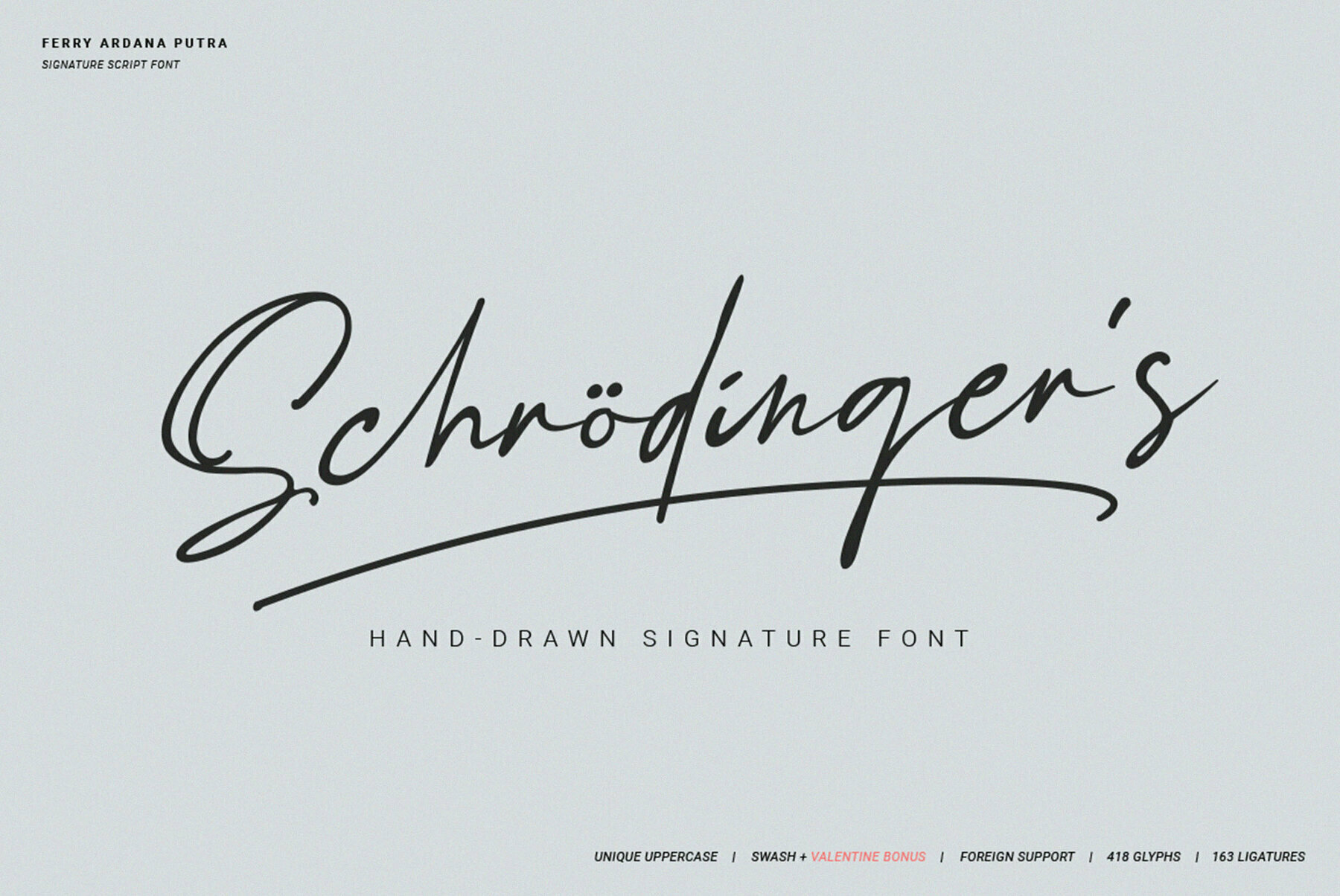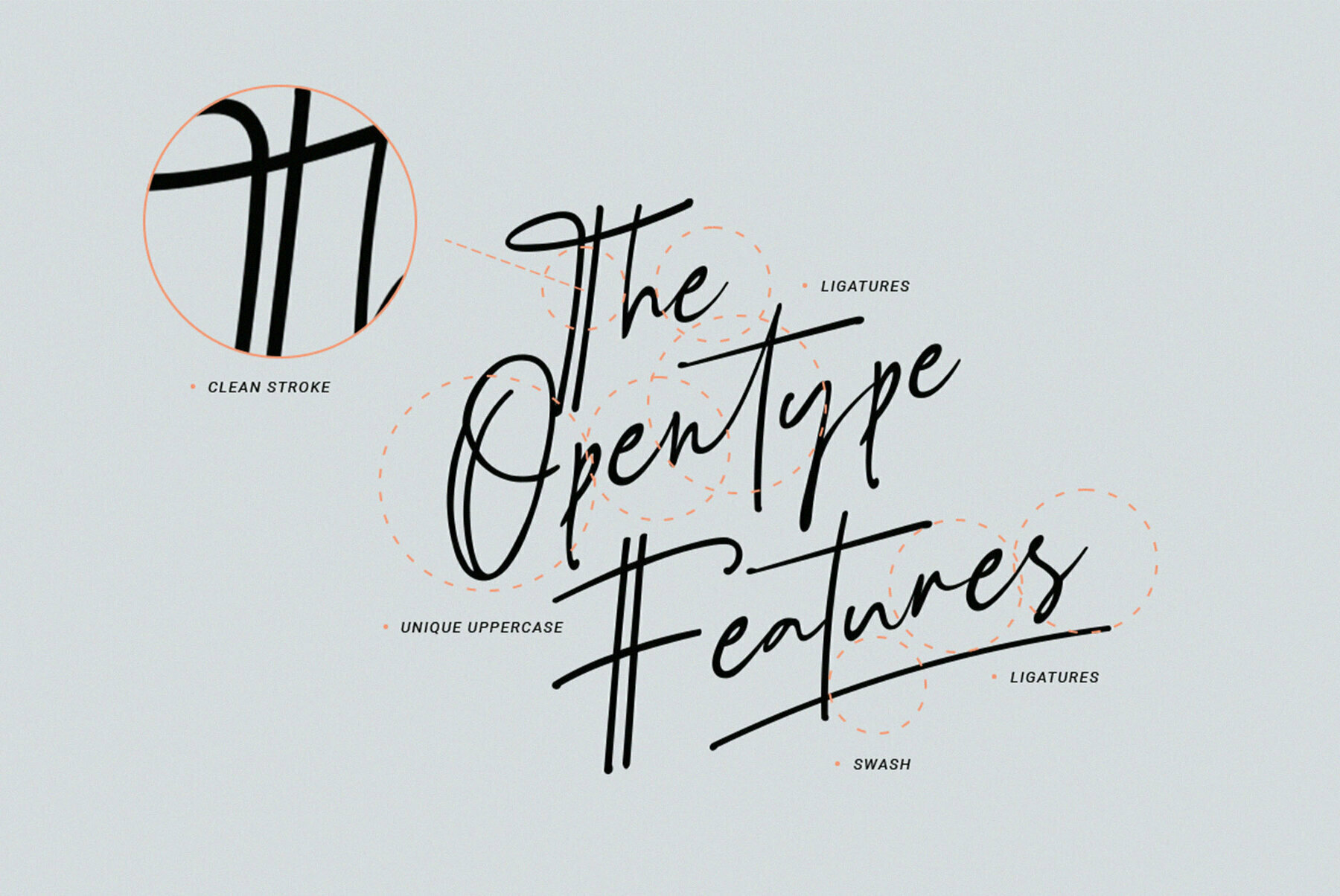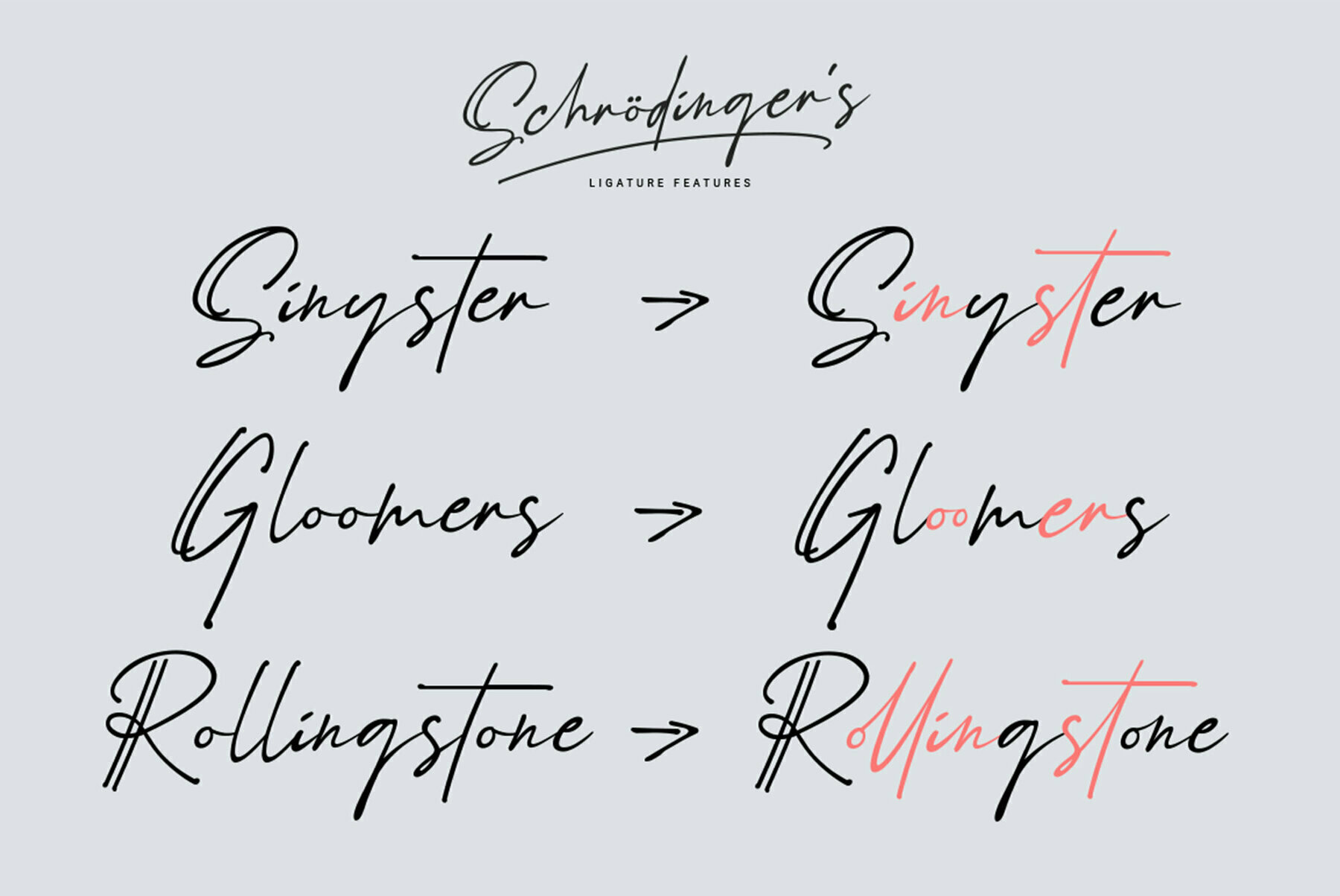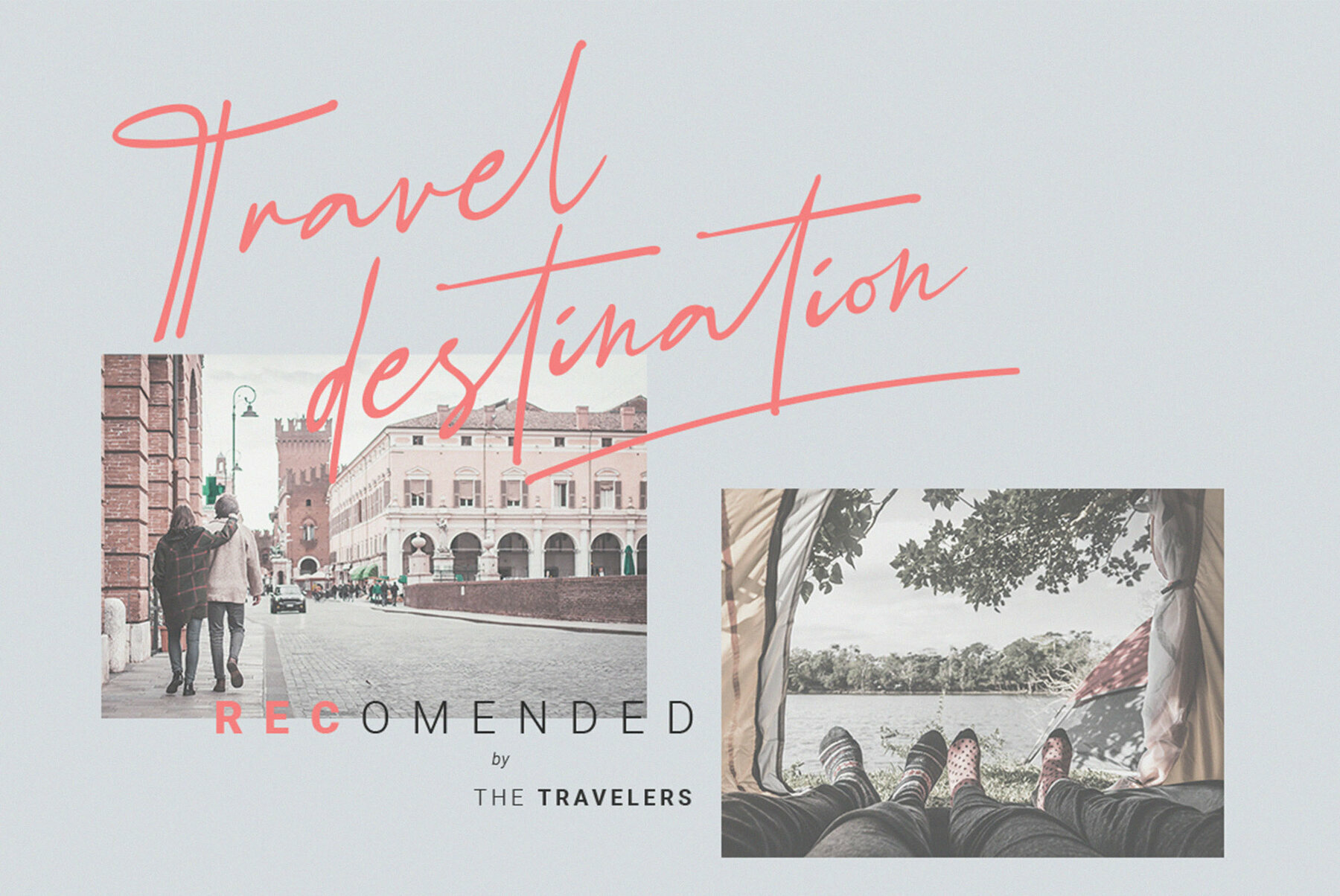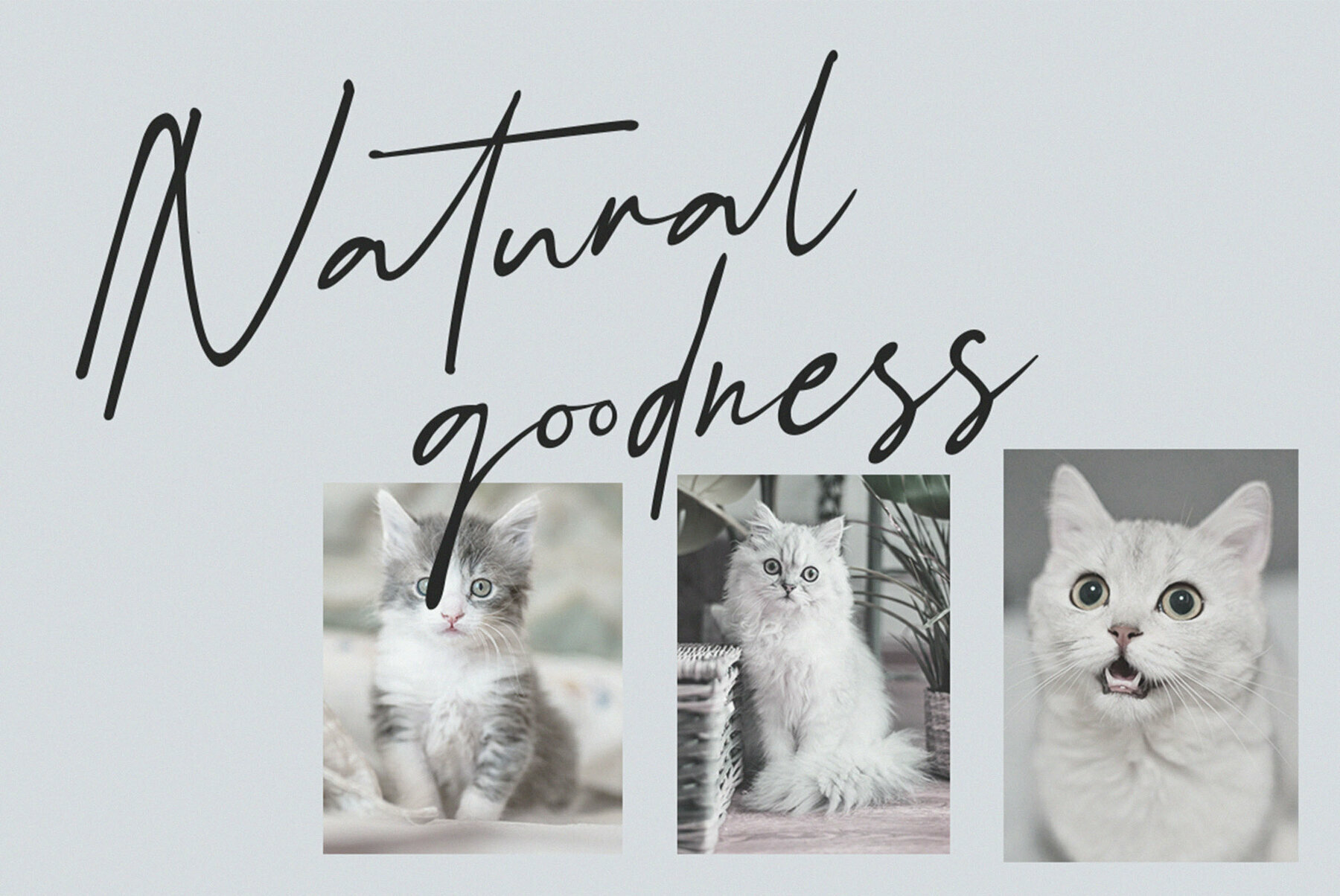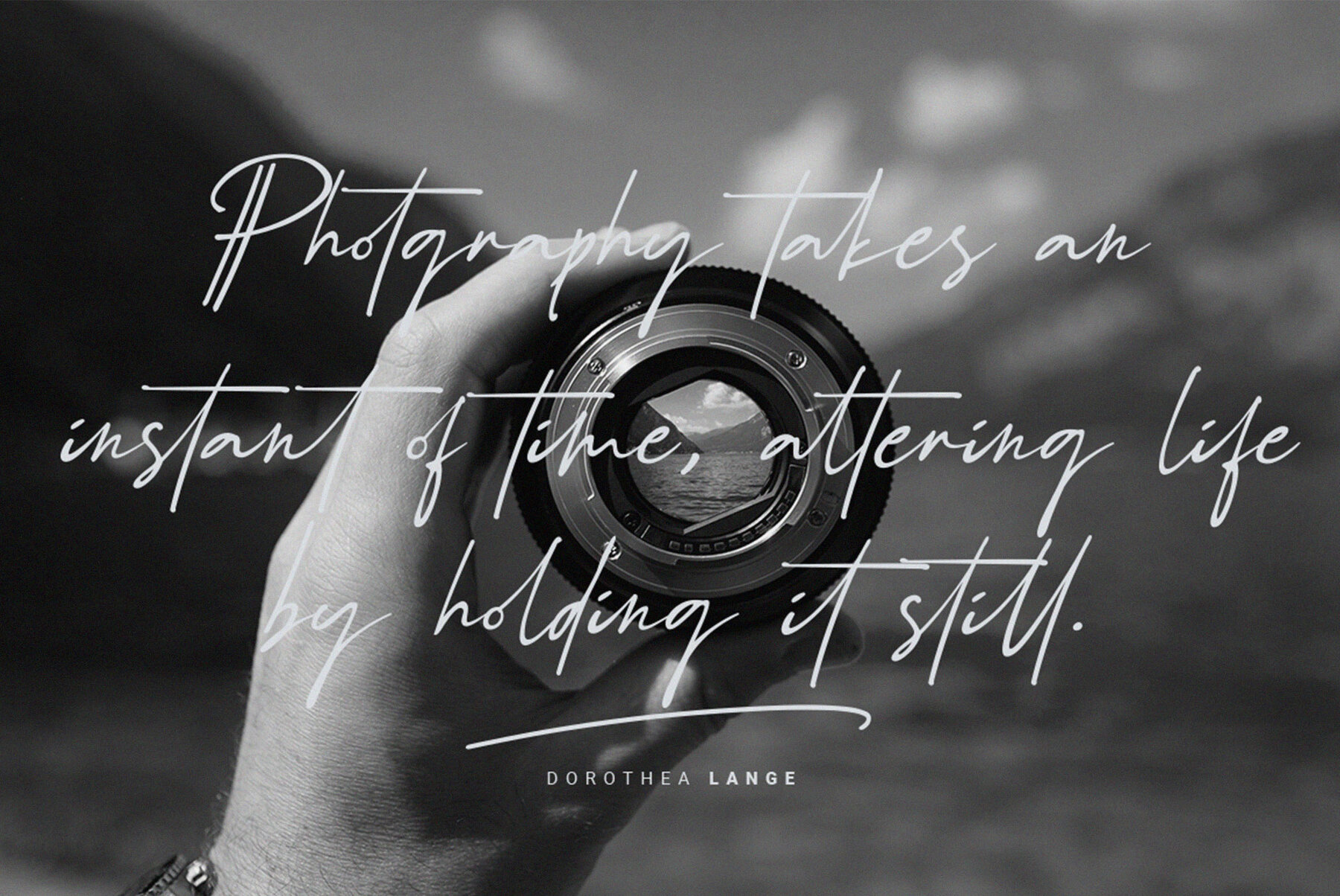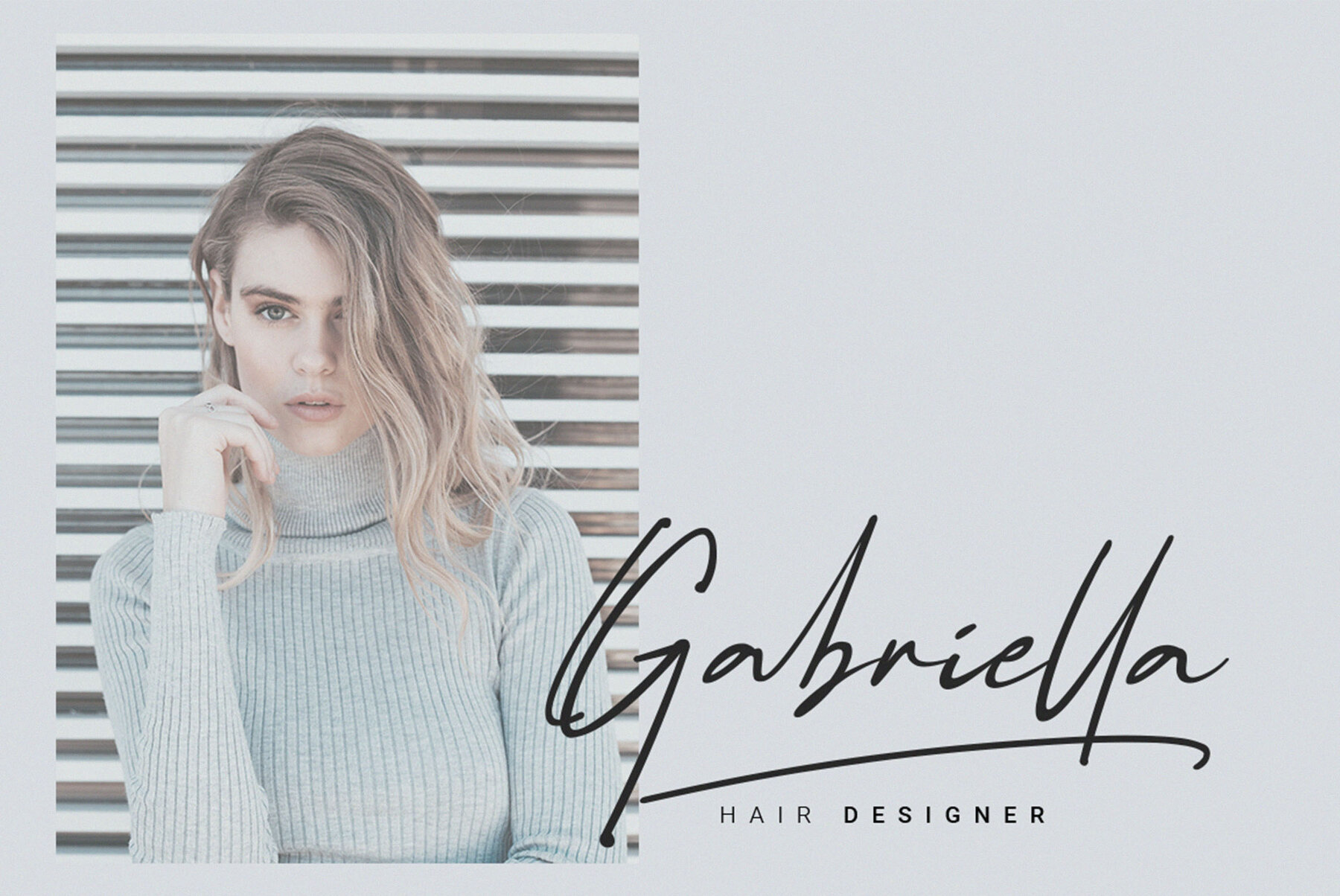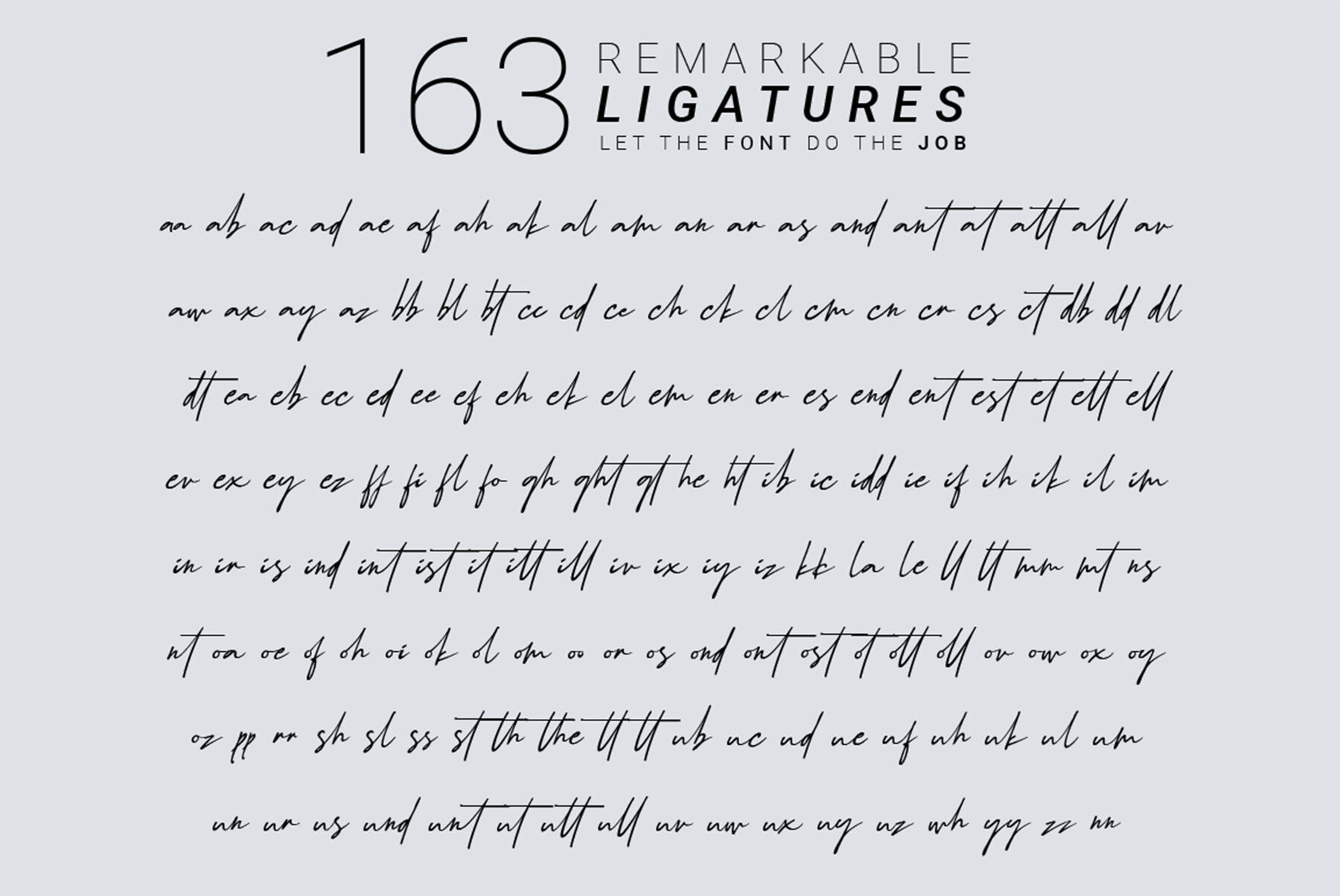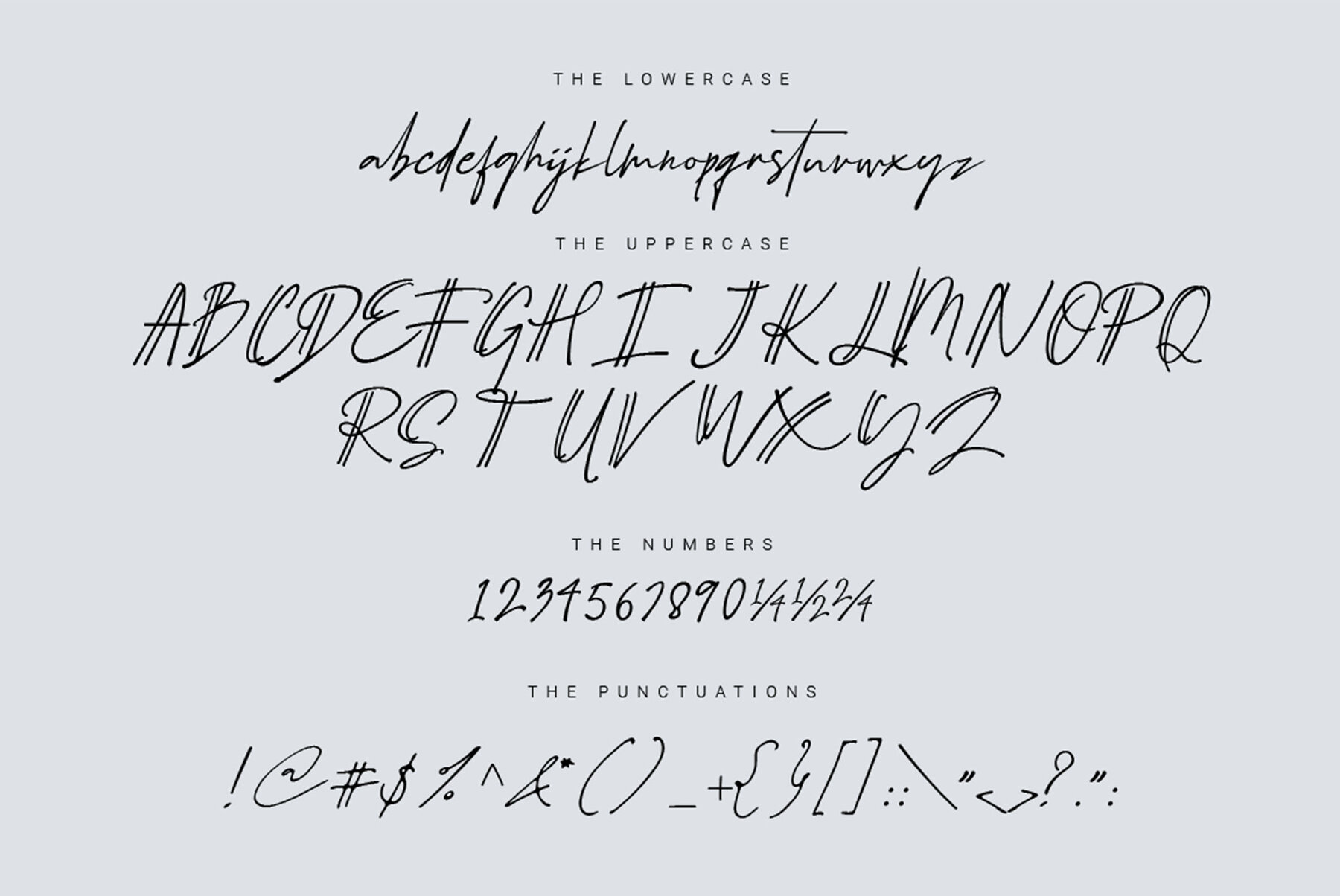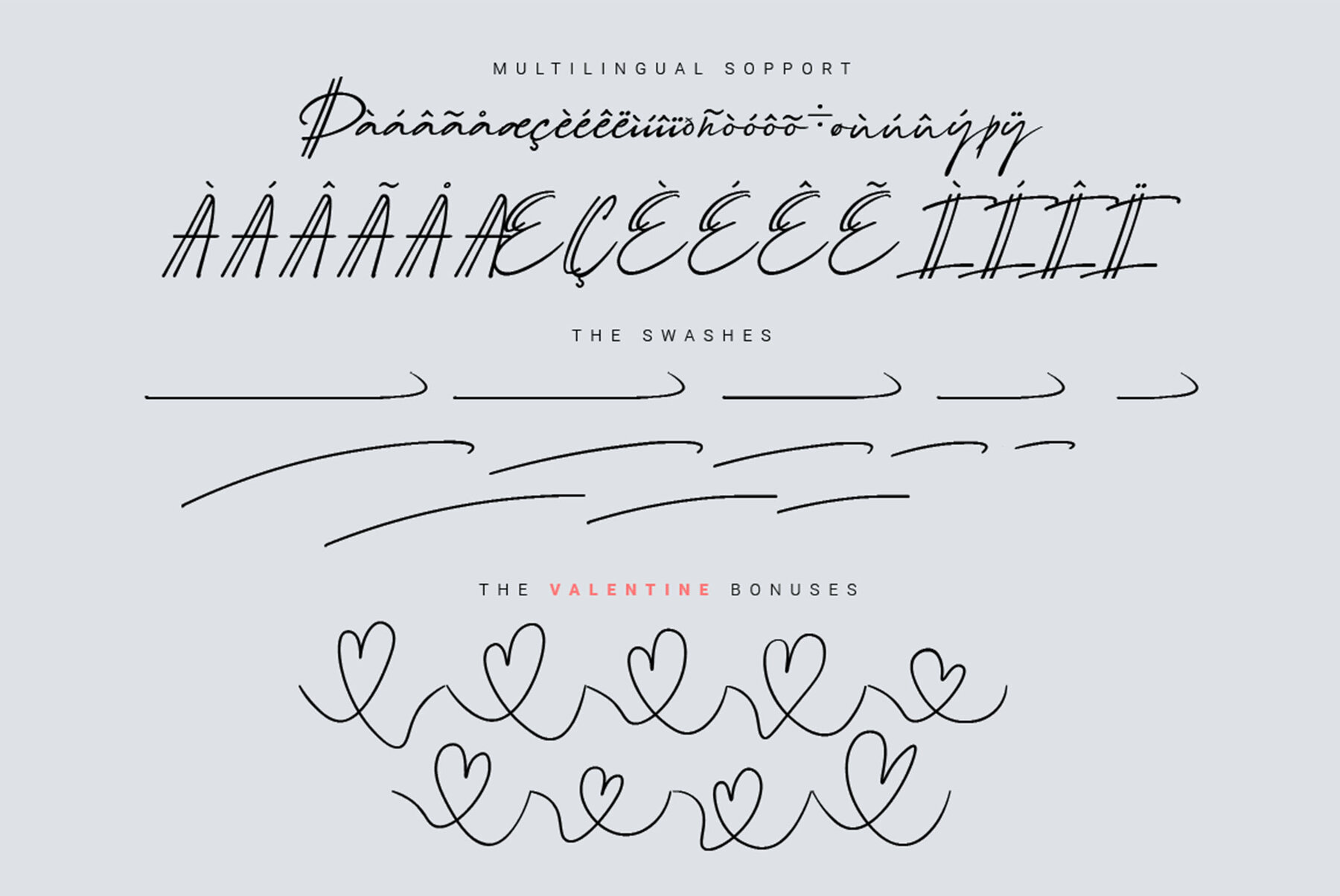
Schrodingers
Schrödinger's is a remarkable signature font which was made hand-drawn manually using Hitech-C pen, This typeface is very natural-like and make your design stand out! Schrödinger's is perfect for gorgeous logos, cards, quotes, posters, wedding invitations, blog posts, social media, and more!
To keep it more natural-like, we provide you hundreds of ligature! Schrödinger's font contains following ligatures:
aa ab ac ad ae af ah ak al am an ar as and ant at att all av aw ax ay az bb bl bt cc cd ce ch ck cl cm cn cr cs ct db dd dl dt ea eb ec ed ee ef eh ek el em en er es end ent est et ett ell ev ex ey ez ff fi fl fo gh ght gt he ht ib ic idd ie if ih ik il im in ir is ind int ist it itt ill iv ix iy iz kk la le ll lt mm mt ns nt oa oe of oh oi ok ol om oo or os ond ont ost ot ott oll ov ow ox oy oz pp rr sh sl ss st th the tl tt ub uc ud ue uf uh uk ul um un ur us und unt ut utt ull uv uw ux uy uz wh yy zz nn
Not only that, we also include swashes and love swashes for those who interested in valentine stuff!